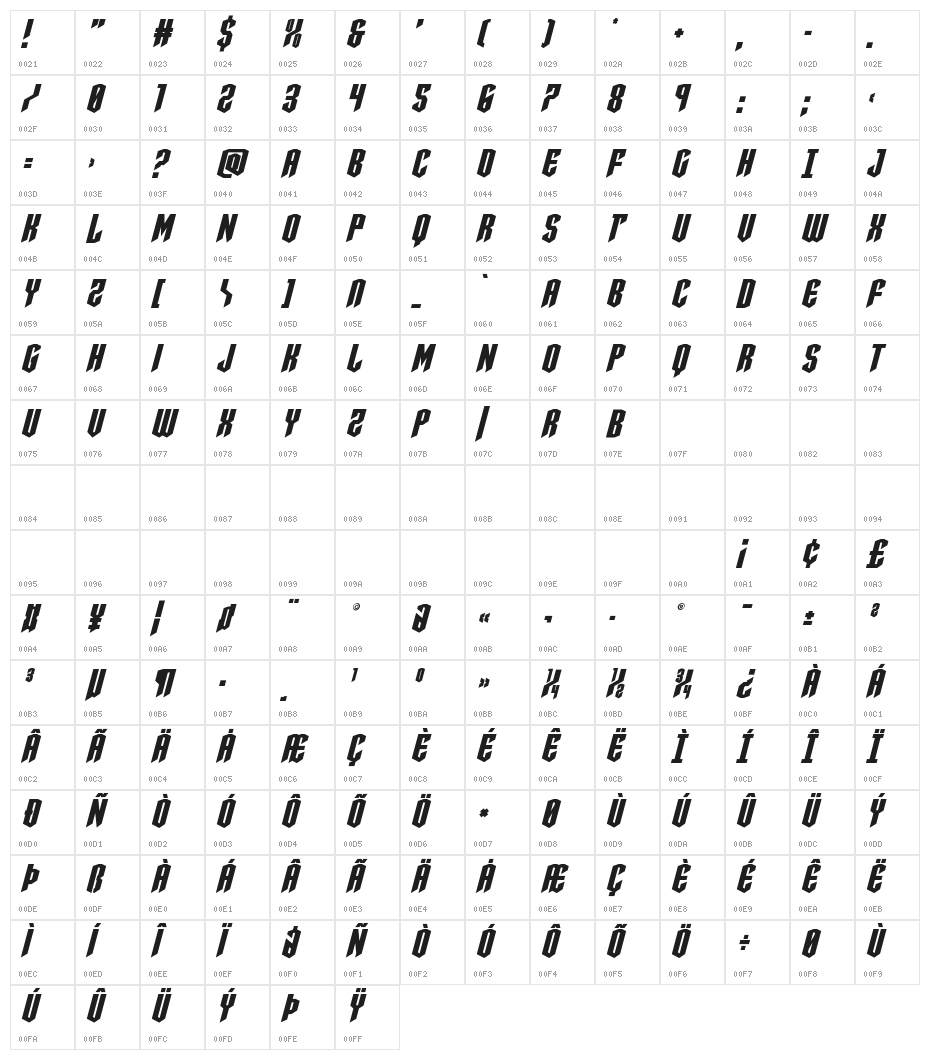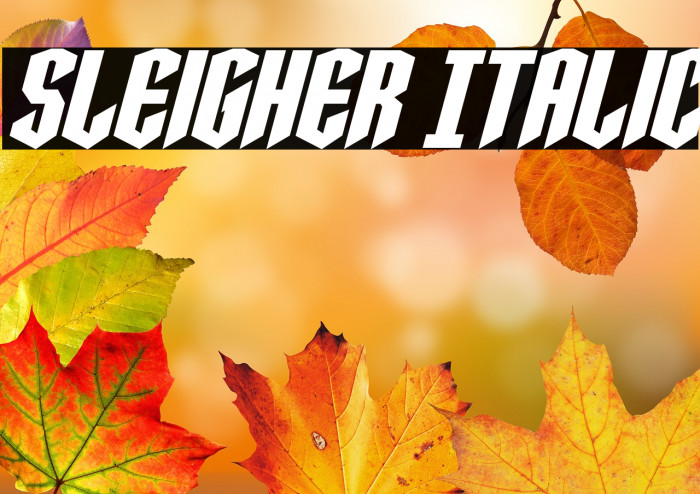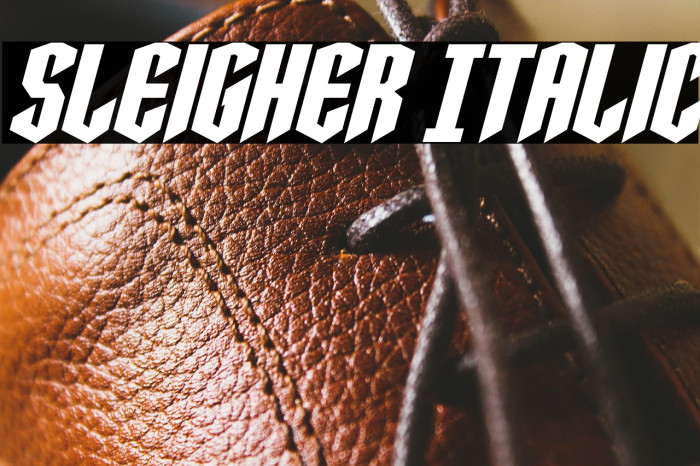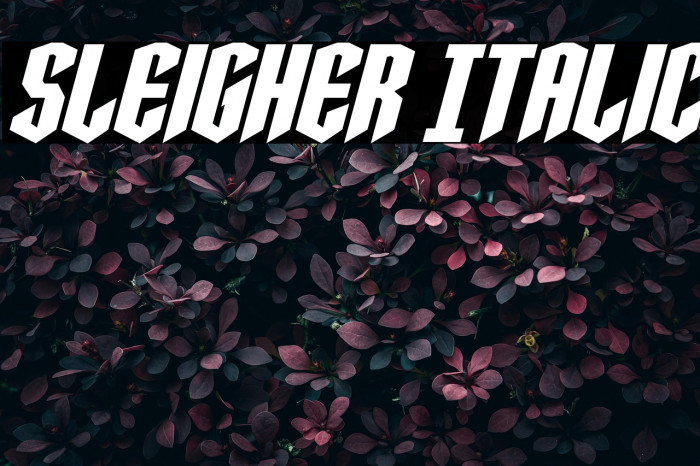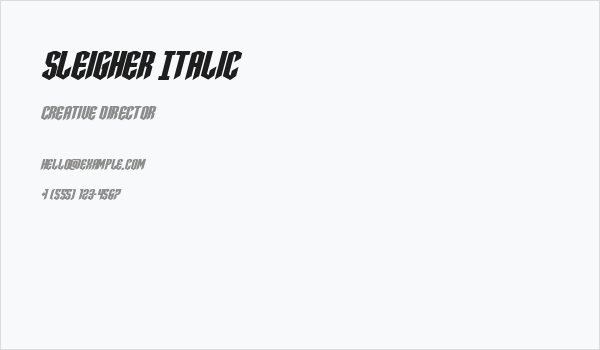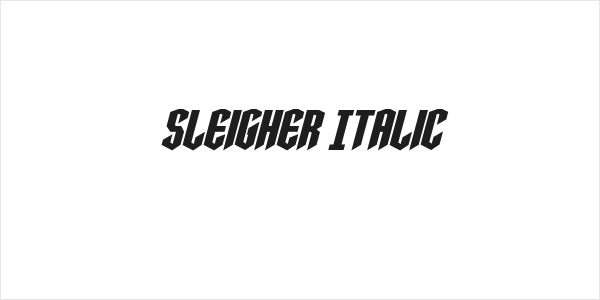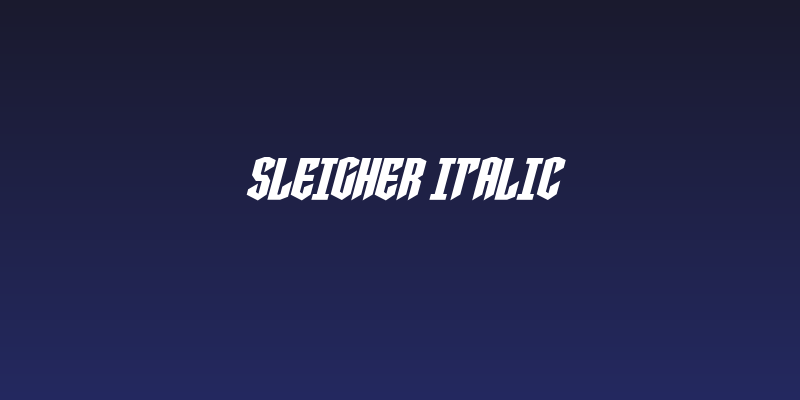
Sleigher Italic Font
Sleigher Italic Description
This font features a bold and dynamic style with a distinct italic slant, giving it a sense of motion and energy. The characters are sharply angled with a heavy weight, creating a strong visual impact. The strokes are thick and consistent, contributing to a high contrast appearance. This typeface is designed to stand out, making it ideal for attention-grabbing headlines and titles. The angular design and bold presence make it suitable for projects that require a modern and edgy aesthetic.
| Proposed Projects | Ideal for music album covers, sports team branding, action movie posters, and edgy graphic design projects. |